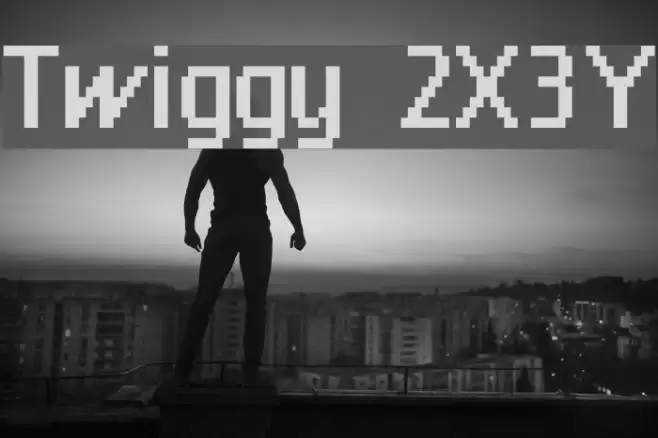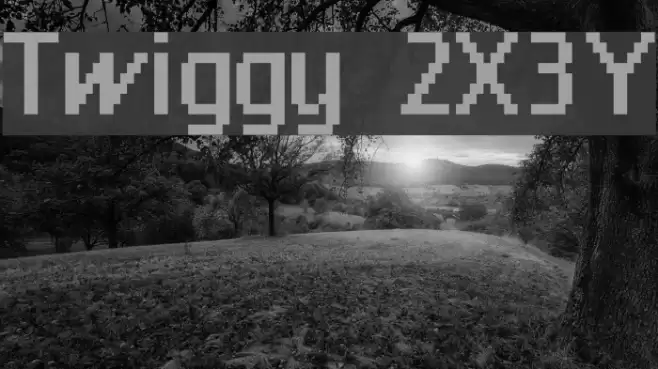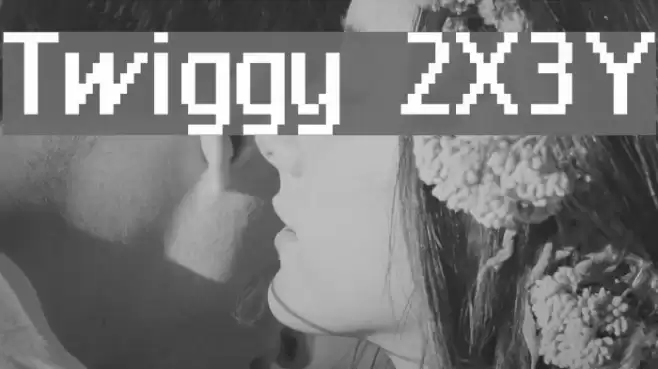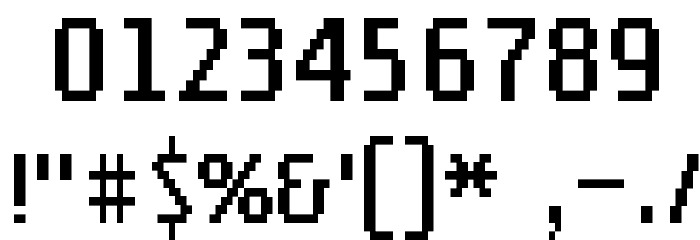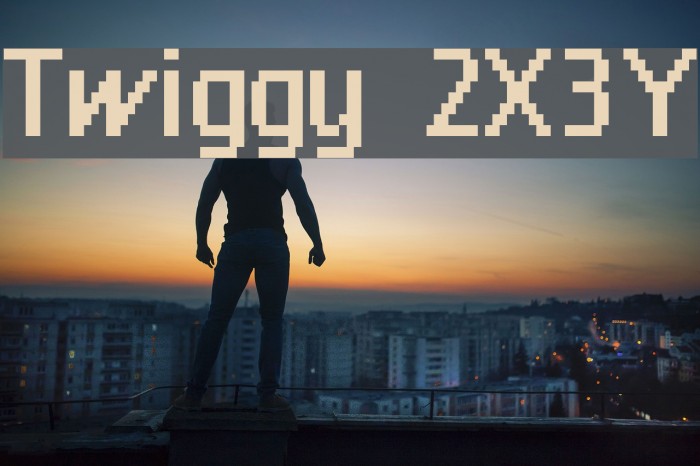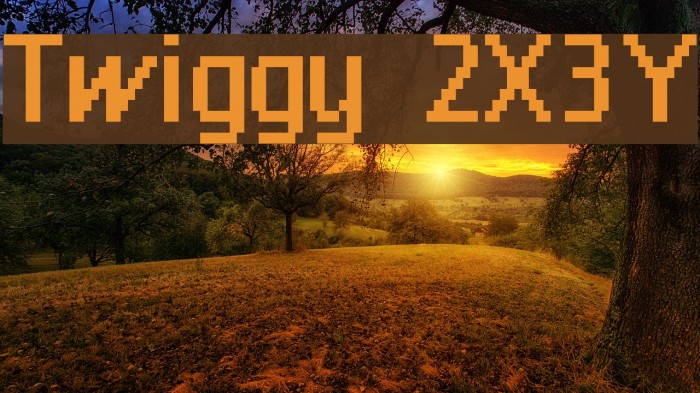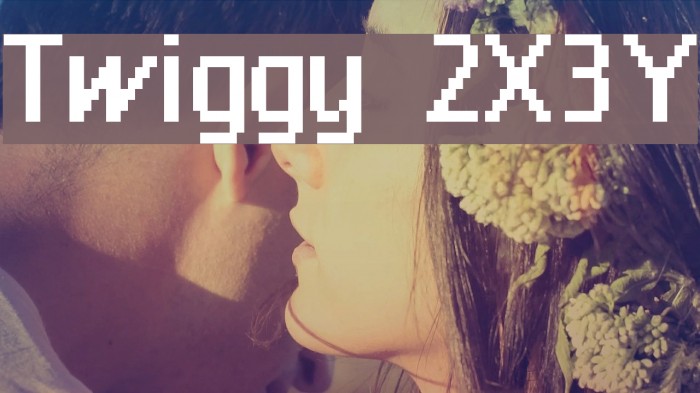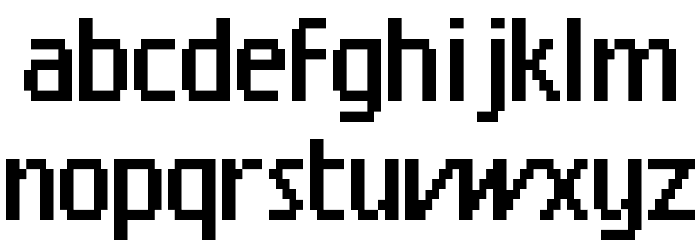
Twiggy 2X3Y Font
Twiggy 2X3Y Description
This font features a pixelated, blocky design reminiscent of early digital displays and retro video games. Each character is constructed with a grid-like precision, giving it a distinctly geometric and modular appearance. The uppercase and lowercase letters maintain a consistent height, contributing to a uniform look. The numerals and special characters are similarly styled, ensuring a cohesive visual experience across all glyphs. The font's simplicity and clarity make it highly legible, even at smaller sizes, while its unique style adds a touch of nostalgia and playfulness.
A pixelated, retro-style font with a blocky, geometric design from Uncategorized fonts.
- Proposed Projects: Ideal for video game design, retro-themed posters, digital art projects, and any creative work that seeks to evoke a sense of nostalgia.
- Overall Style: Retro, Digital
- Use Case: Headlines, Logos, Digital displays